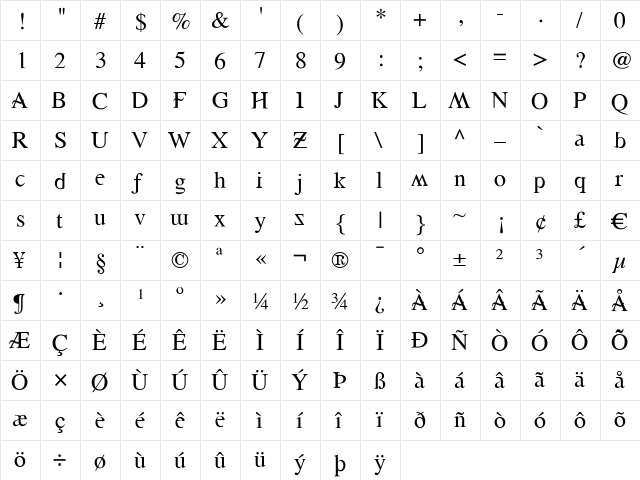
Zwiebelfisch Regular
Design Context for Zwiebelfisch Typeface
Zwiebelfisch offers clean, dependable letterforms without strong stylistic allegiance, making it a practical choice for designers who need flexibility.